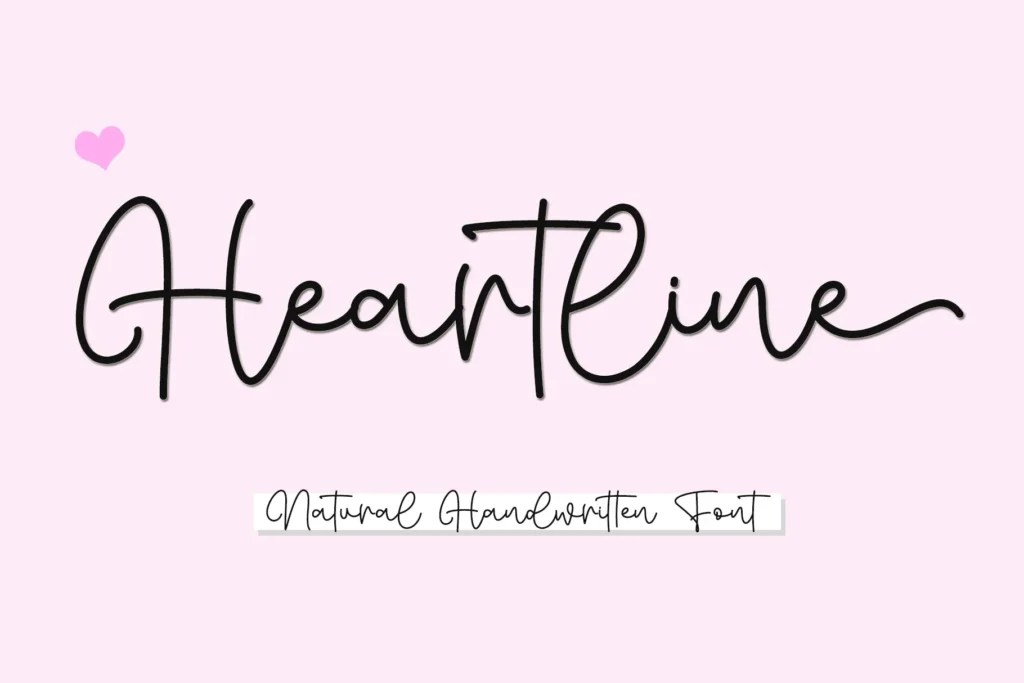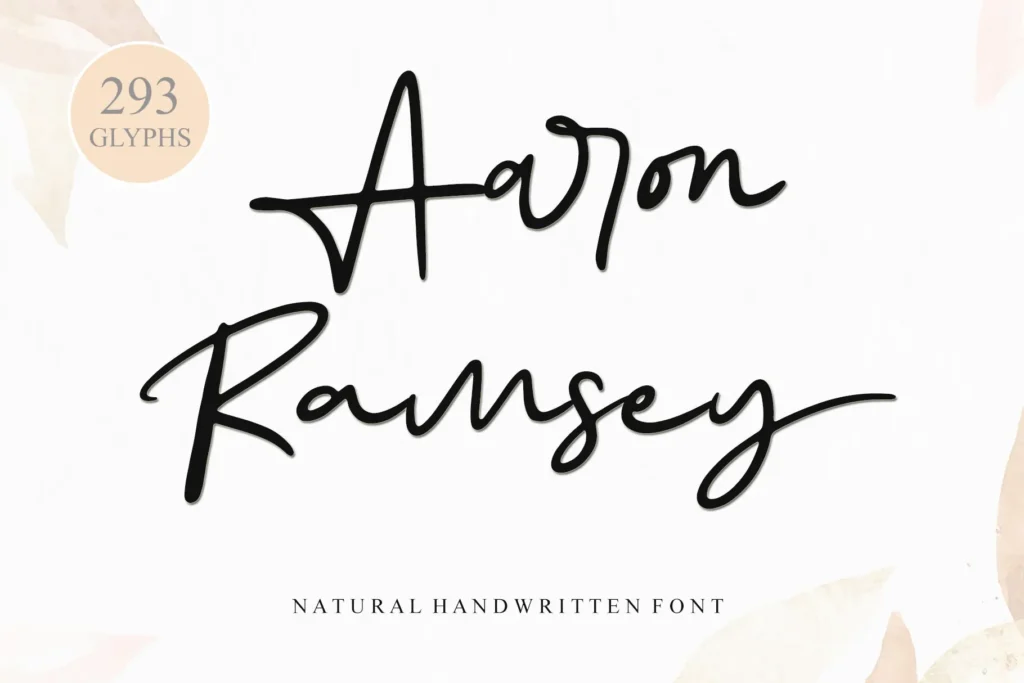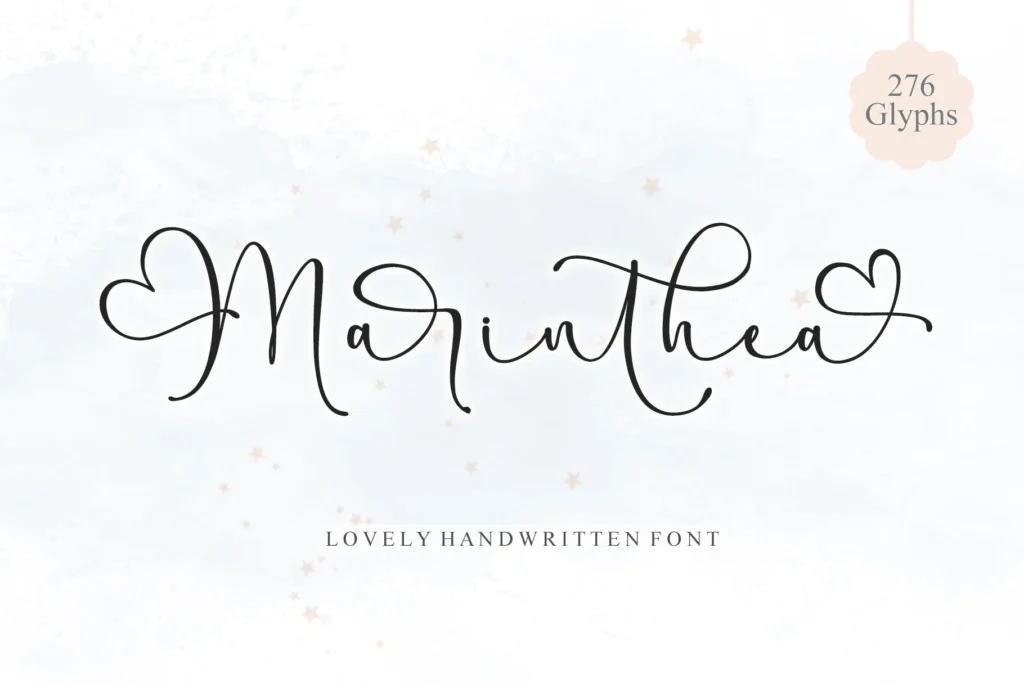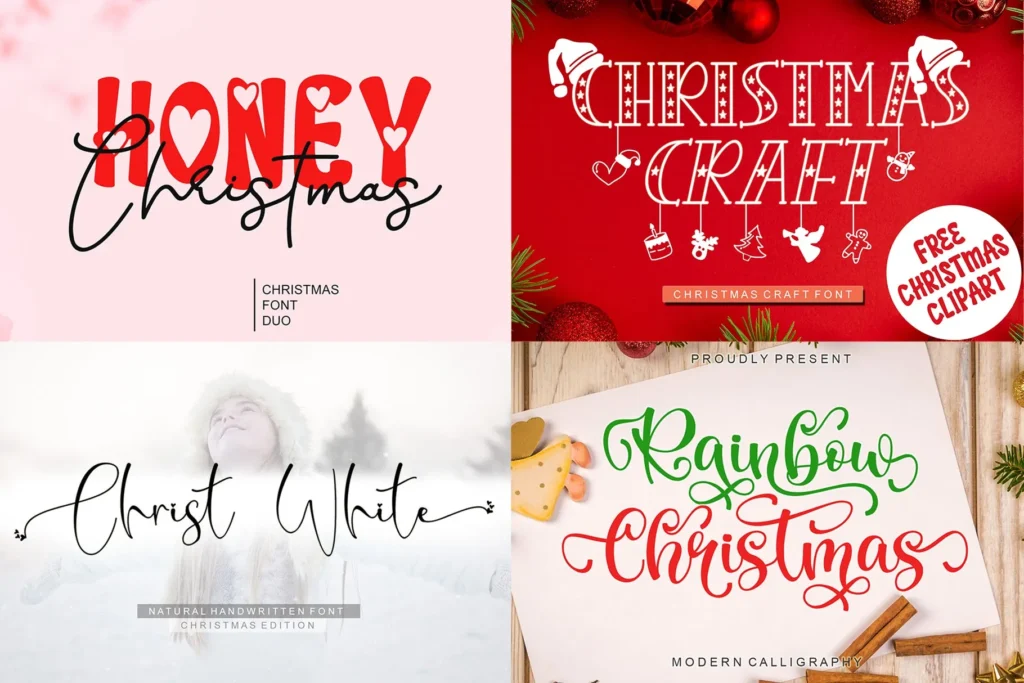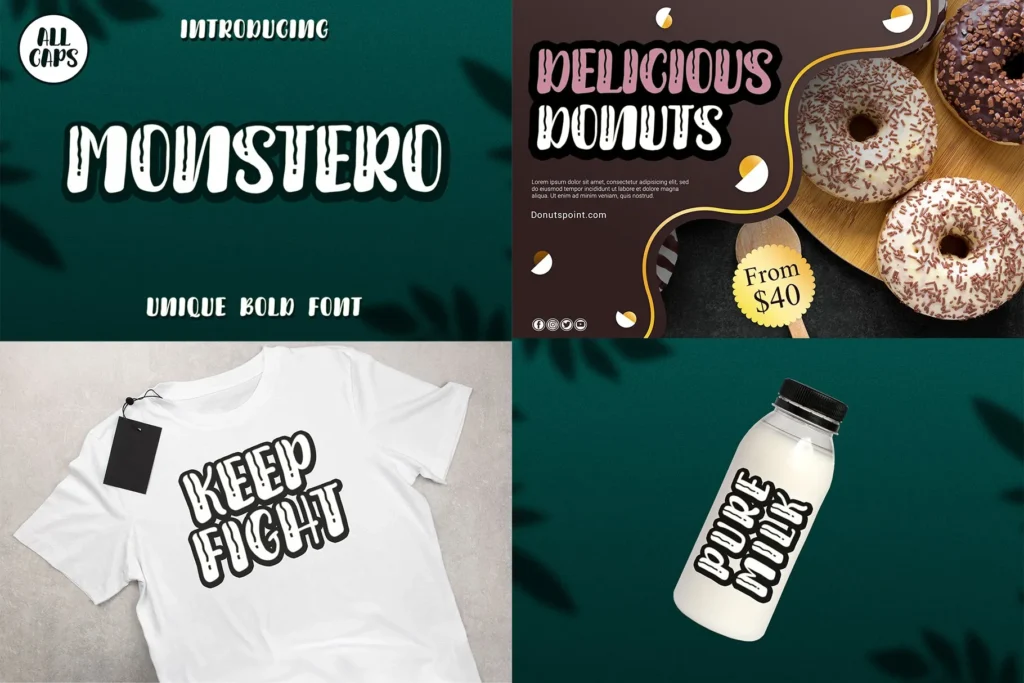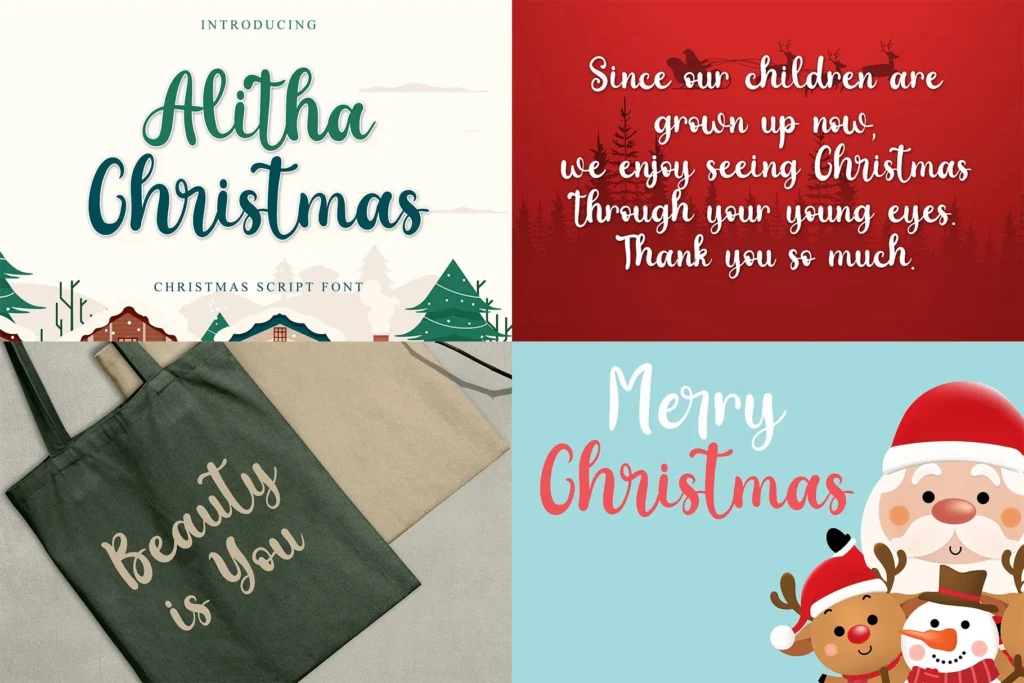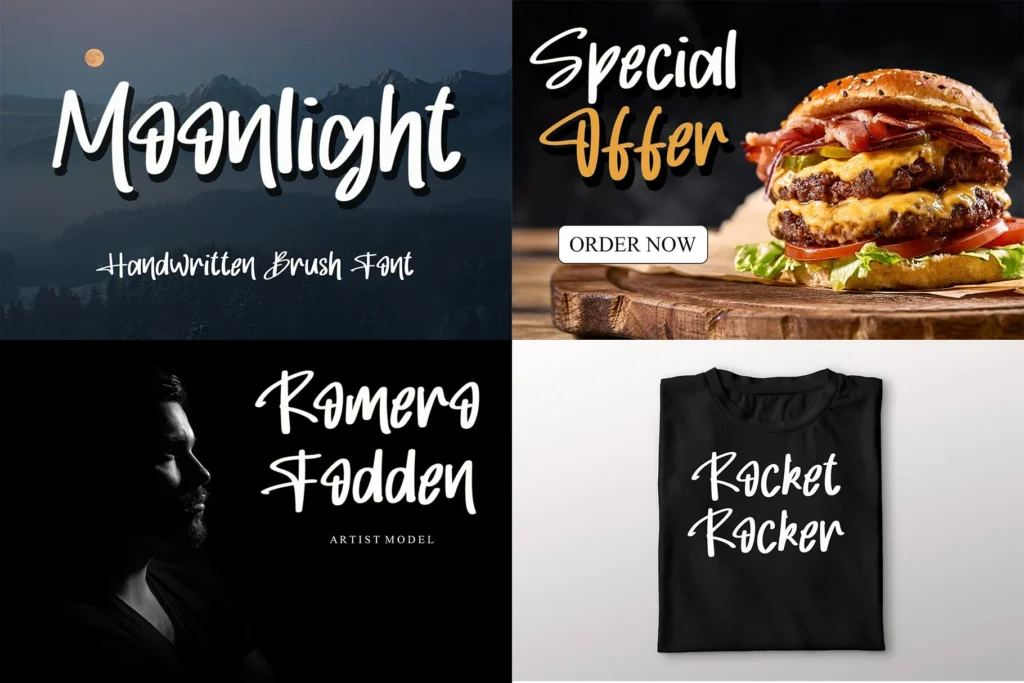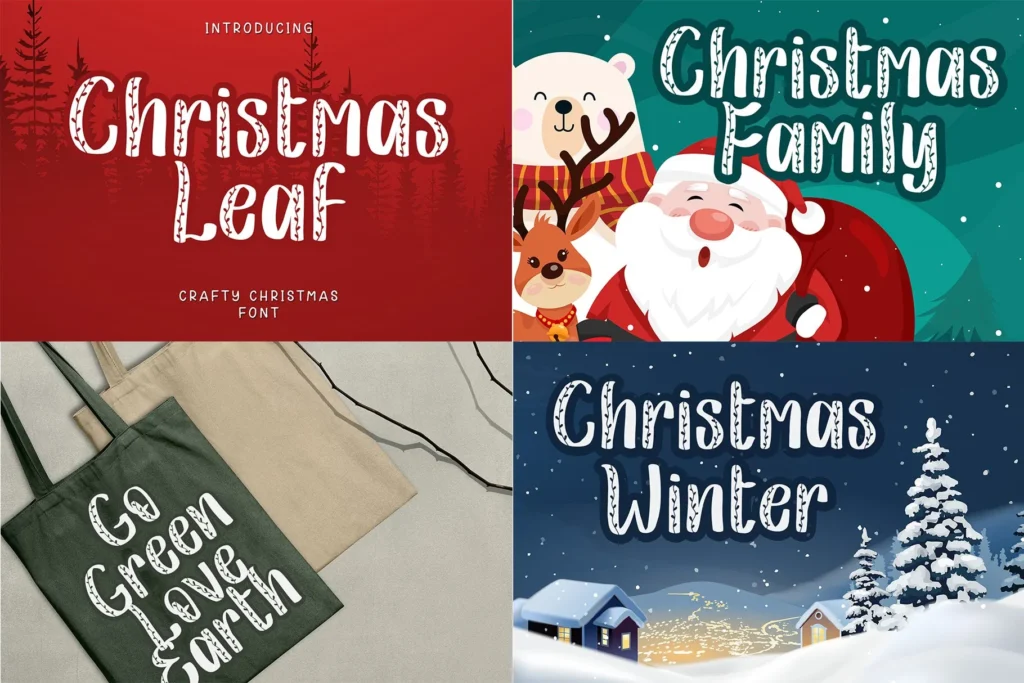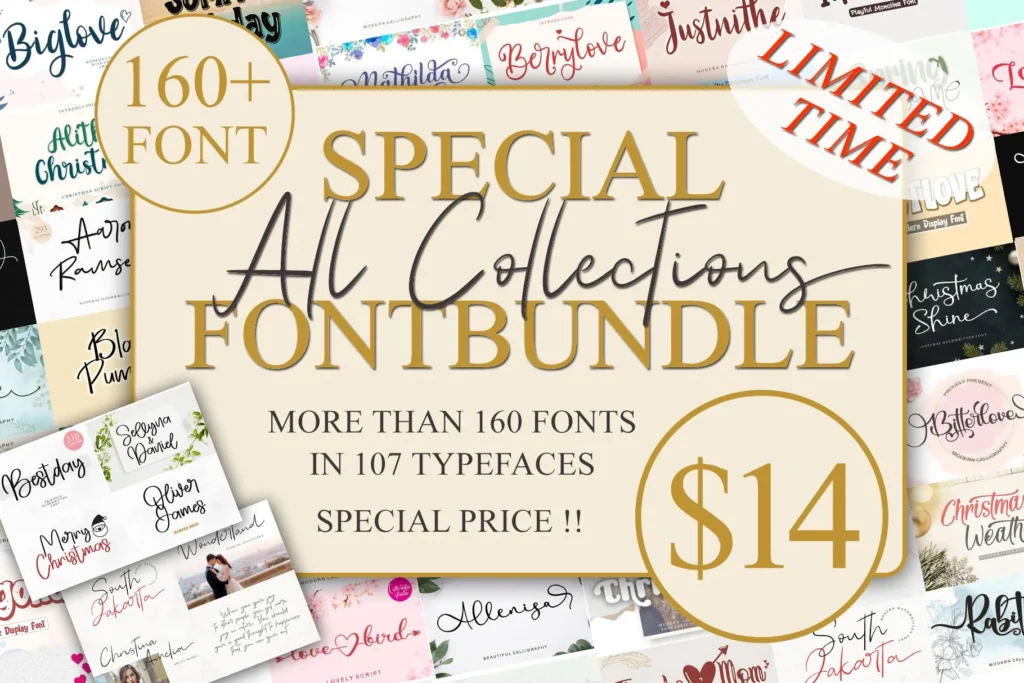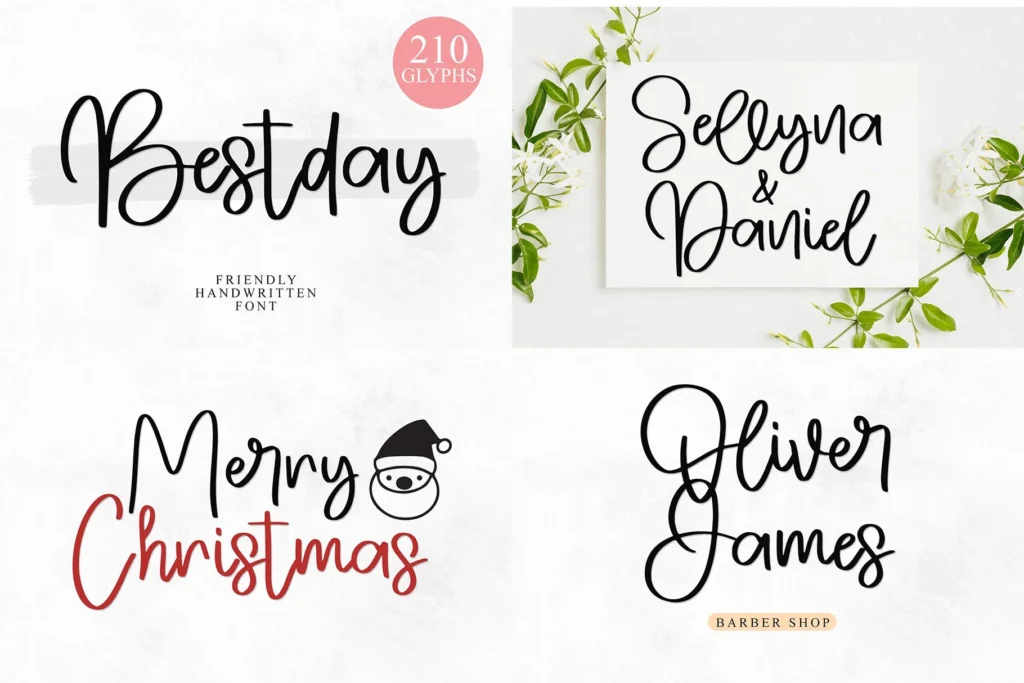
All Collections Font Bundle
The
All Collections Font Bundle
is a comprehensive font bundle
by
. 107 Fonts in 1 package which contains modern calligraphy/script fonts, handwritten fonts and display fonts. Get this bundle for just $14 and save $1399!
That font is perfect for: logos, greeting cards, package designs, a brand identity, craft design, any DIY project, book titles, wedding invitations, packaging, and more.